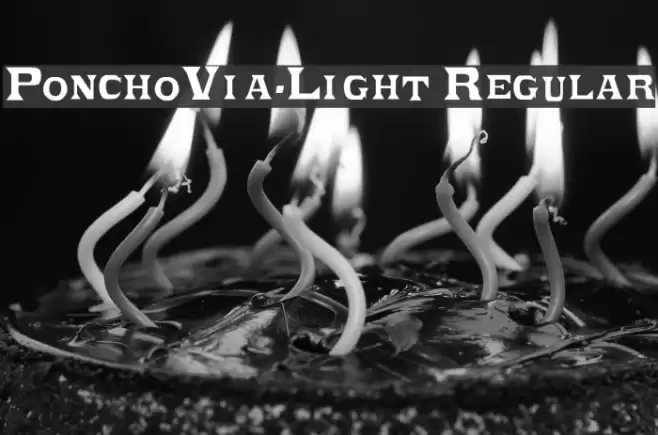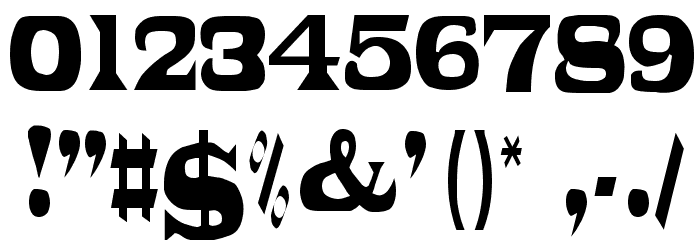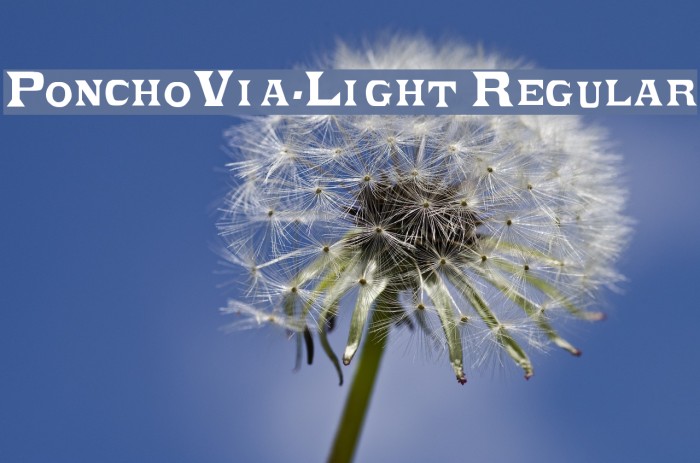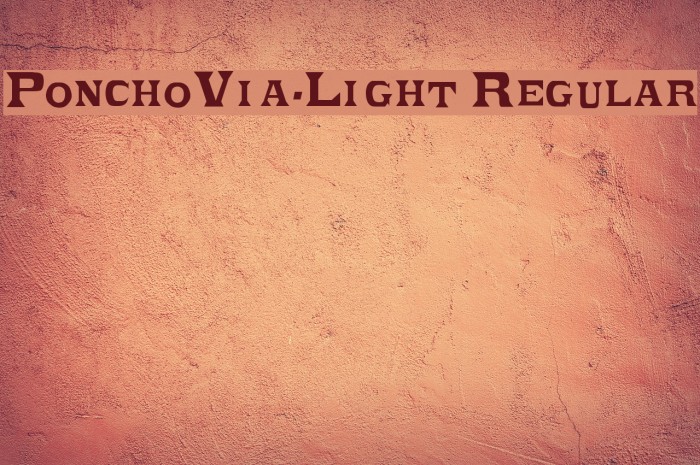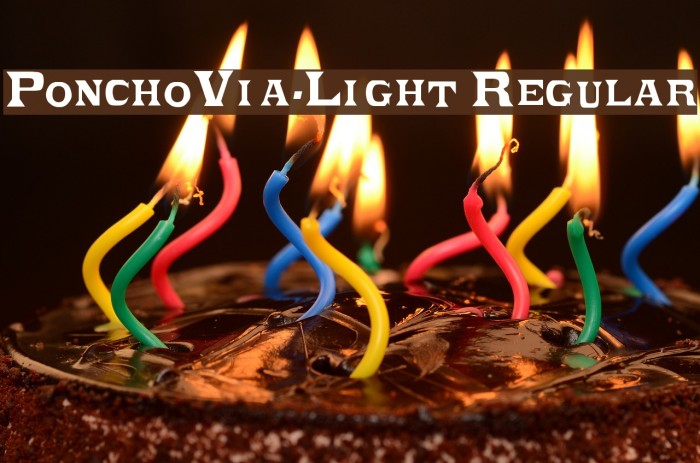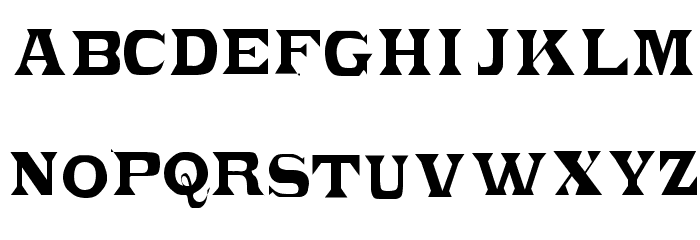
PonchoVia-Light Regular Font
PonchoVia-Light Regular Description
This font features a bold and dynamic design with a strong presence. The characters are crafted with sharp, angular serifs and a slightly condensed form, giving it a distinctive and assertive look. The uppercase letters are particularly striking, with a consistent height and width that create a uniform appearance. The lowercase letters maintain the same boldness, ensuring readability while adding a touch of elegance. The numerals are robust and clear, making them suitable for various applications. Special characters are designed with the same attention to detail, ensuring they blend seamlessly with the rest of the font. Overall, this font exudes a sense of strength and confidence, making it ideal for impactful designs.
A bold, angular serif font with a dynamic and assertive style from Serif fonts.